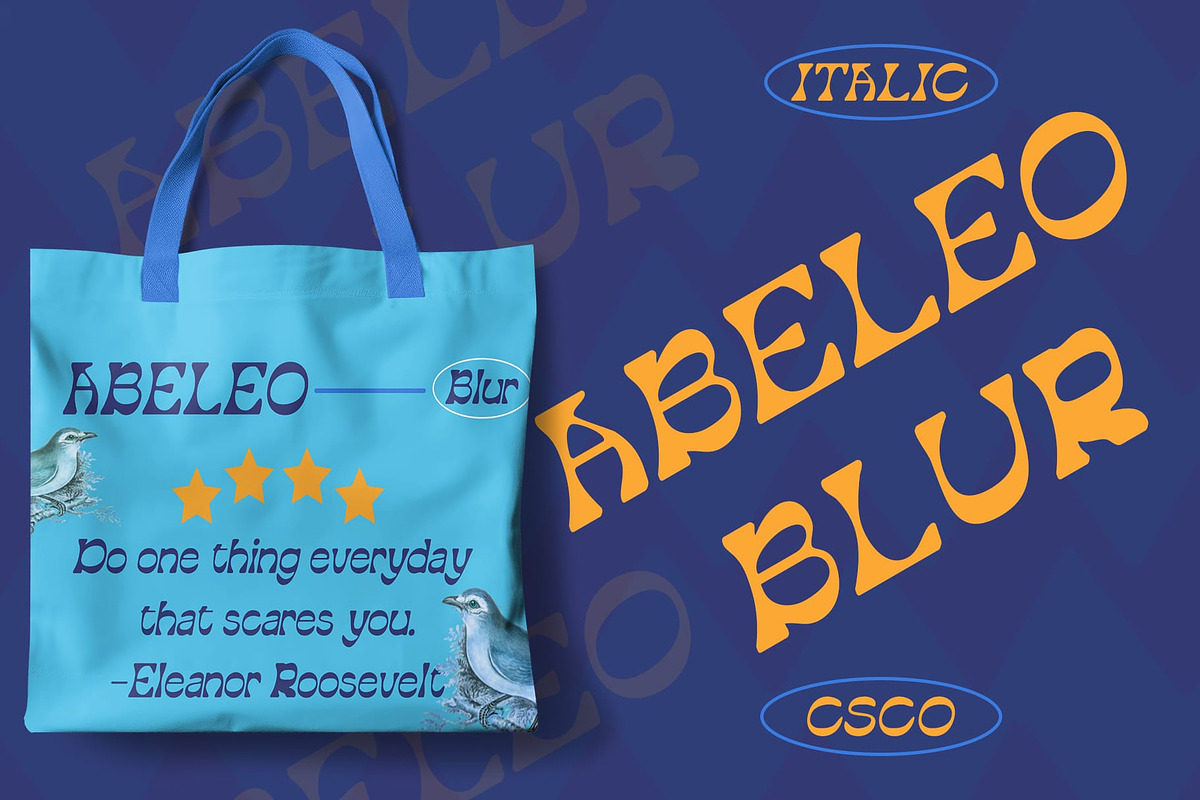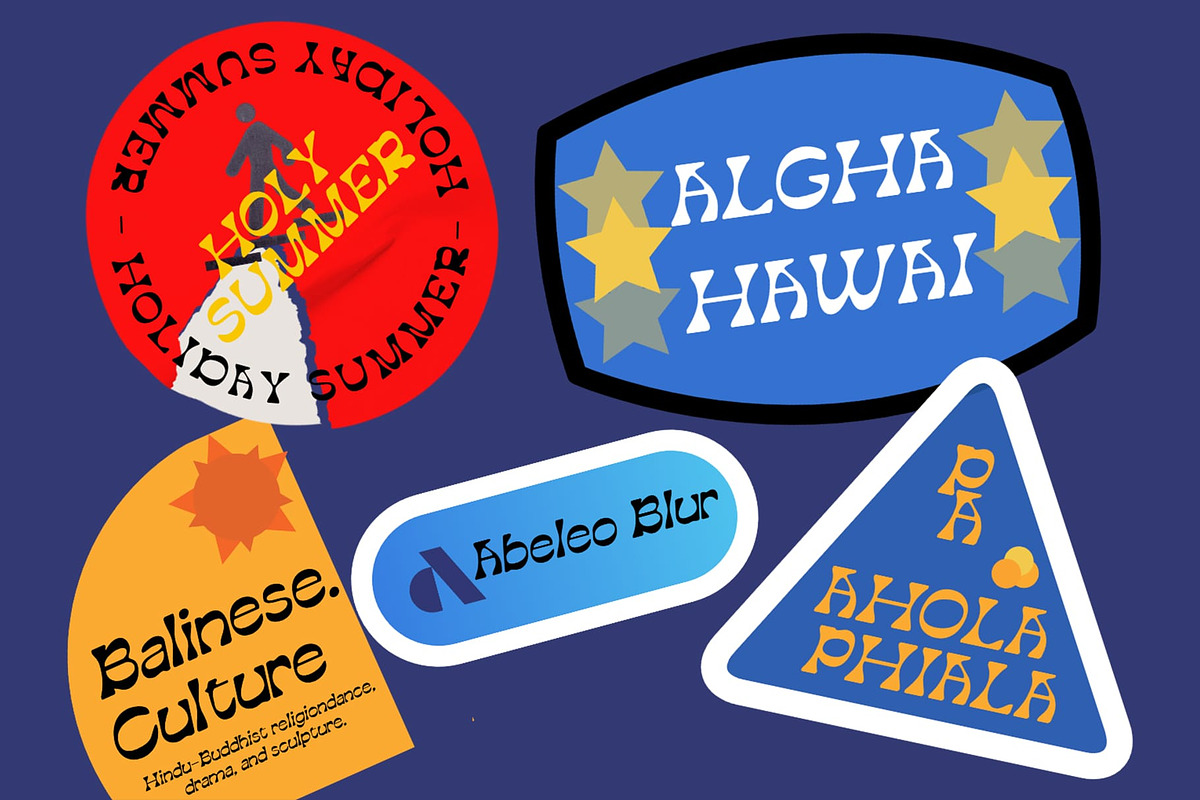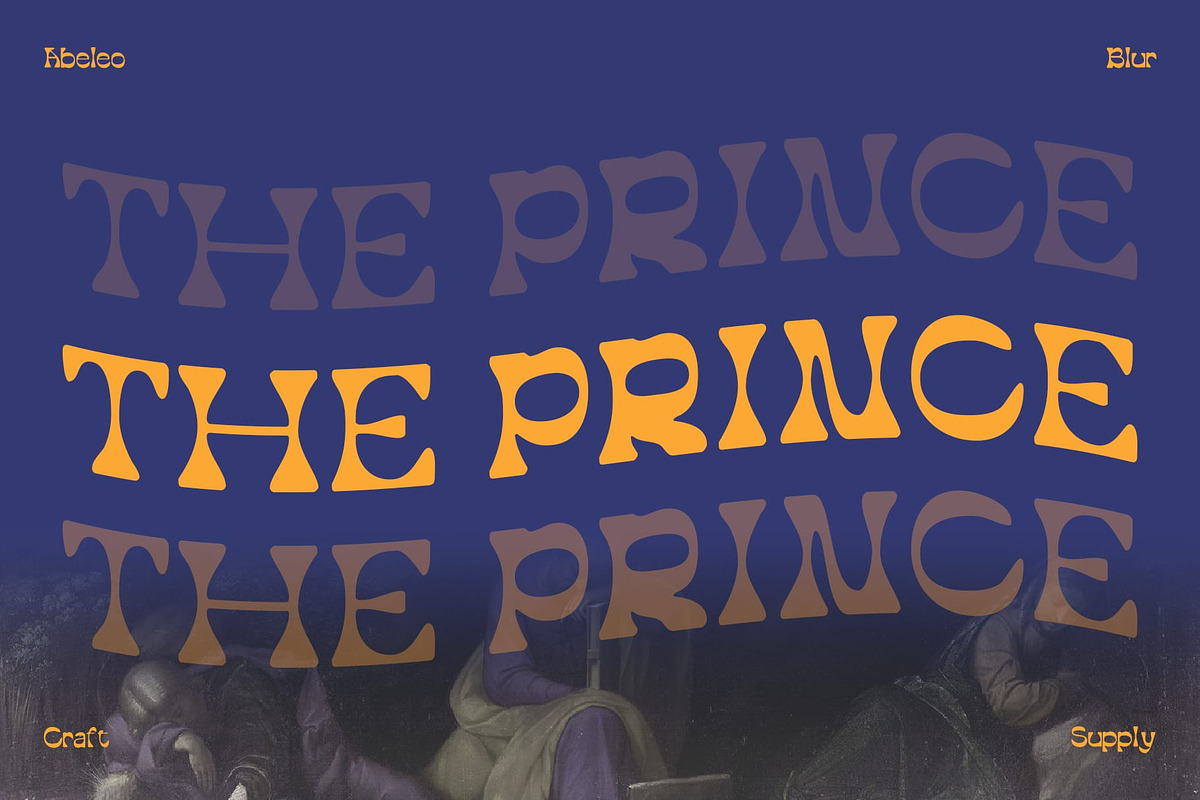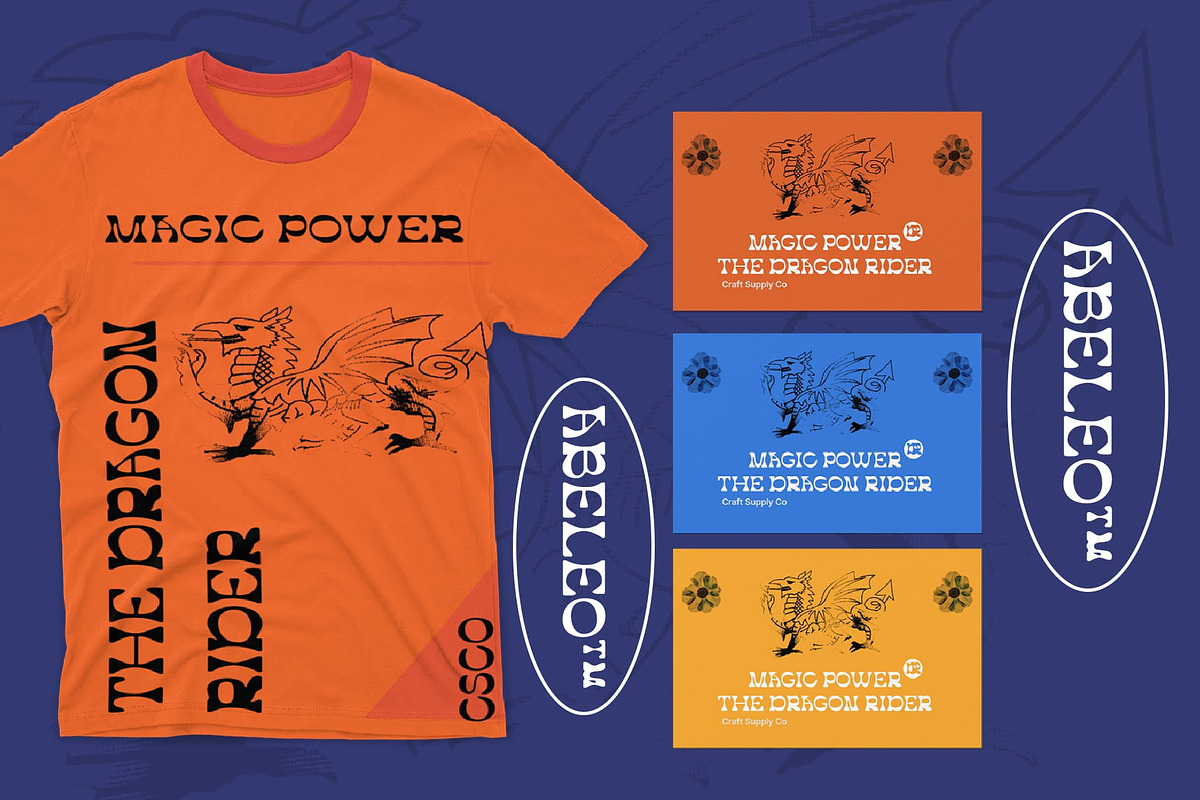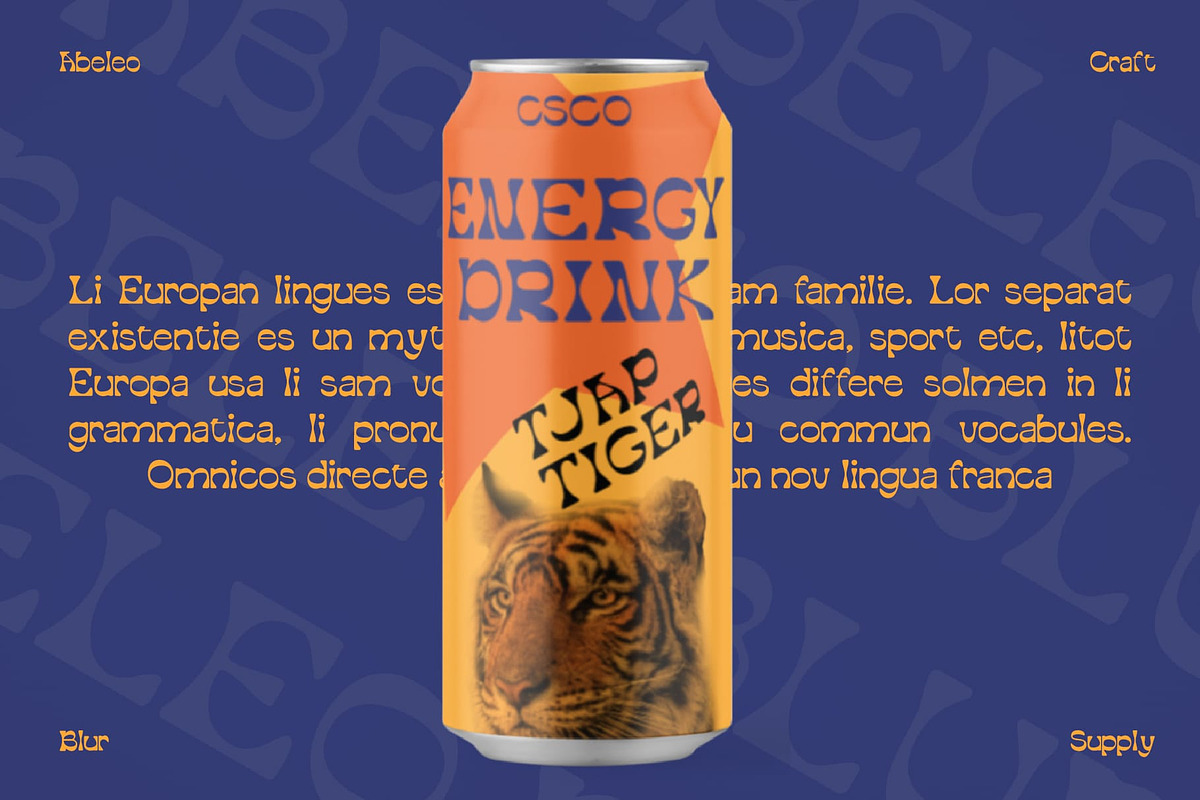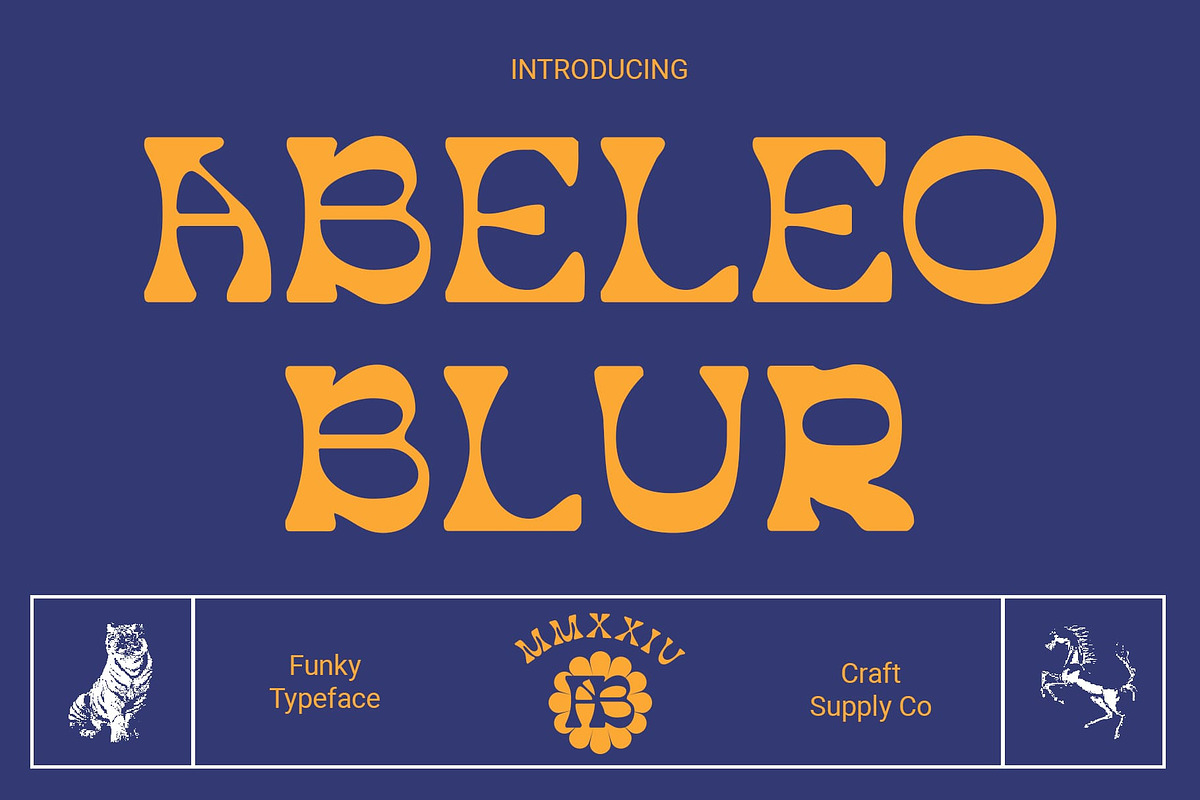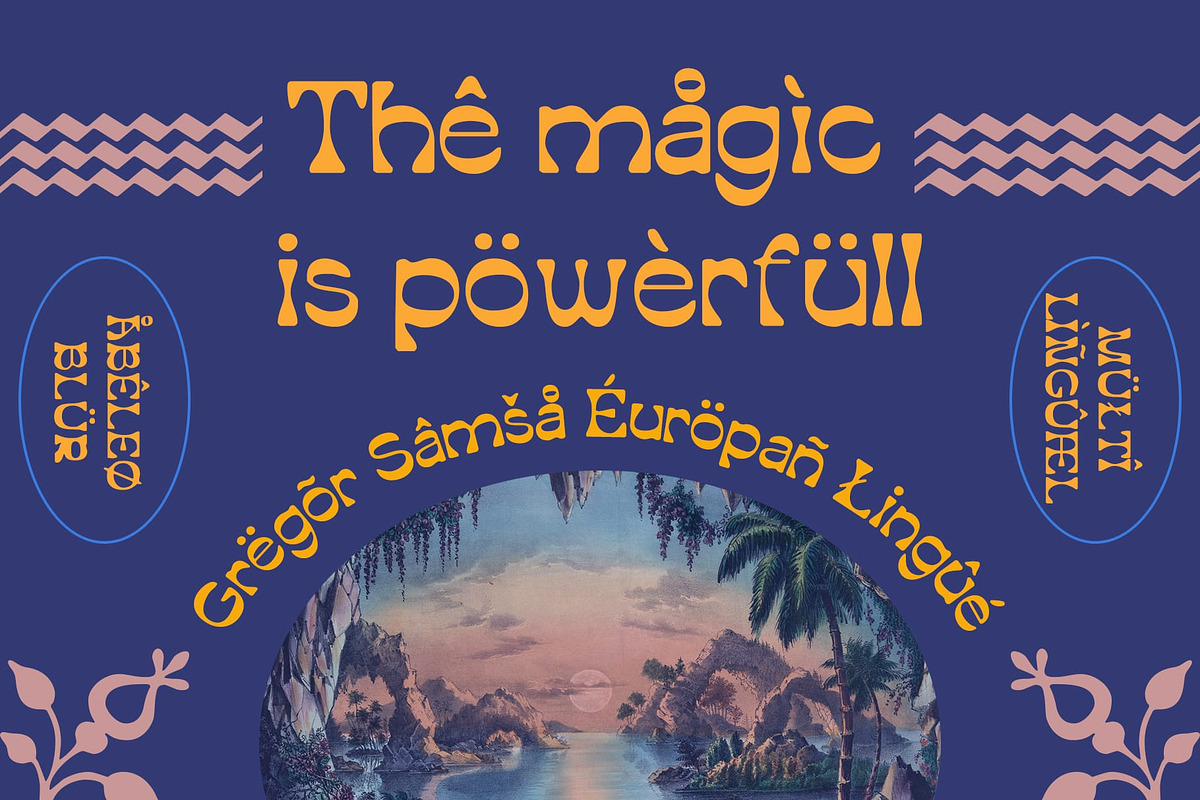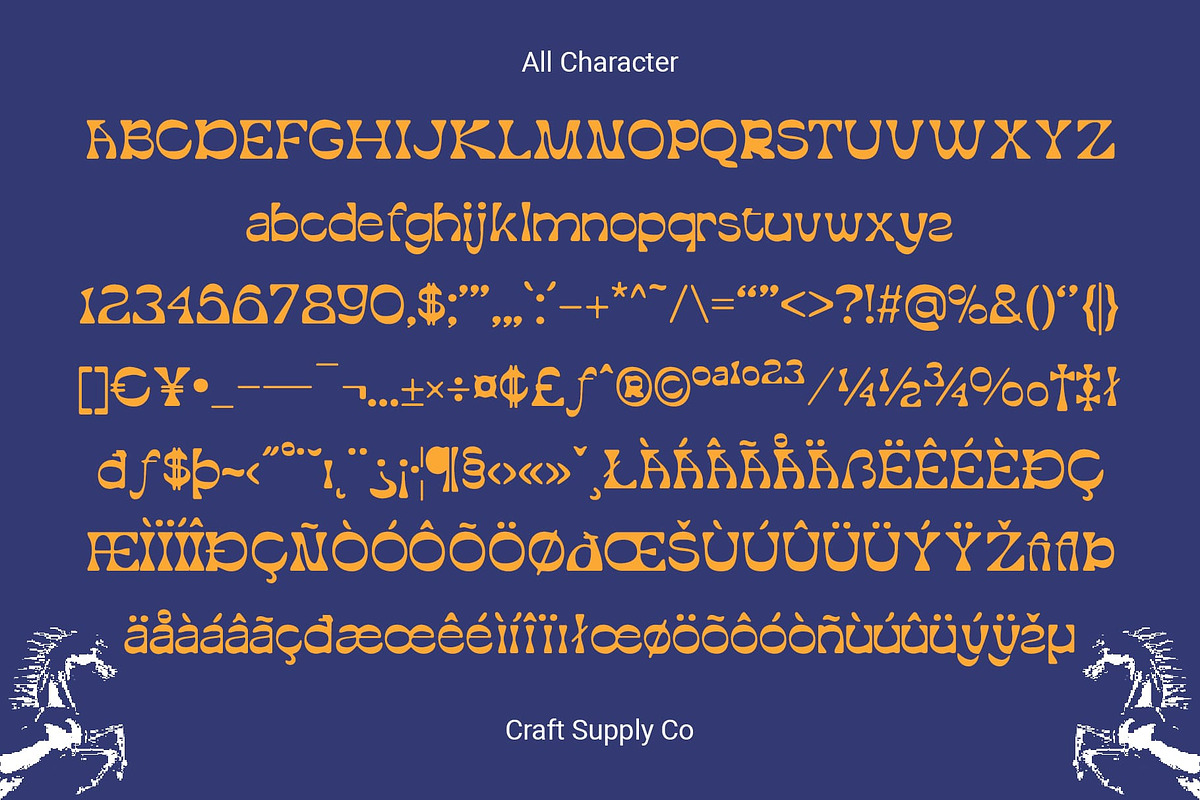
Abeleo Blur
Abeleo Blur: Groovy Vibes with a Modern Twist
Funky Display Design This font boasts a funky display design inspired by the vibrant energy of music. Its playful shapes and dynamic forms capture the essence of rhythm and movement.
Music-Inspired Aesthetic Drawing inspiration from various music genres, This font features elements that evoke the spirit of music festivals, concerts, and dance floors. It brings a lively and upbeat vibe to any design project.
Blur Effect This font is enhanced with a subtle blur effect, adding depth and dimension to its appearance. This effect creates a sense of motion and fluidity, making Abeleo Blur stand out in the crowd.
Perfect for Display Designed specifically for display purposes, This font is perfect for catching the eye and making a statement. Whether used in posters, album covers, or digital artwork, it adds a touch of excitement and energy.
Capturing the Rhythm of Music This font encapsulates the spirit of music with its funky design and dynamic blur effect. Ideal for adding a playful touch to any project, it invites viewers to groove along with its modern and energetic aesthetic.